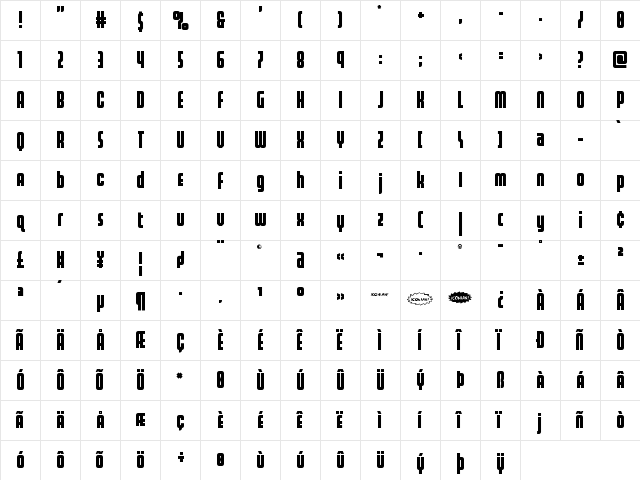
Homelander Regular
Design Context for Homelander Typeface
Homelander takes a measured approach to typography — its balanced proportions and neutral character make it a reliable workhorse for both digital and print work.